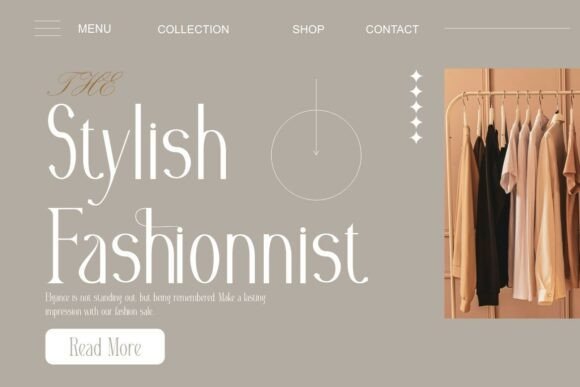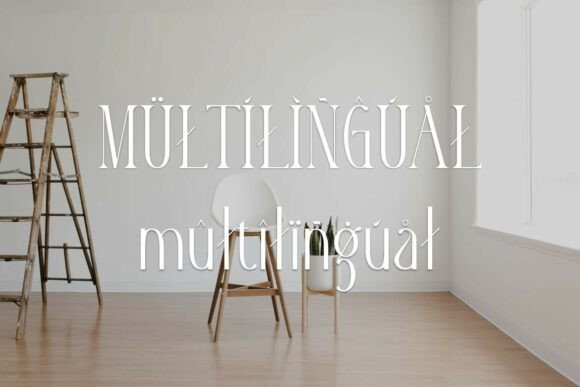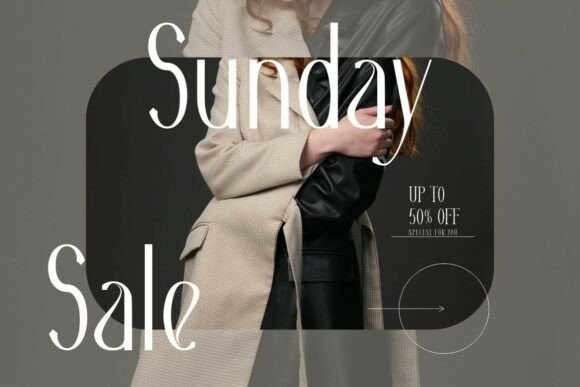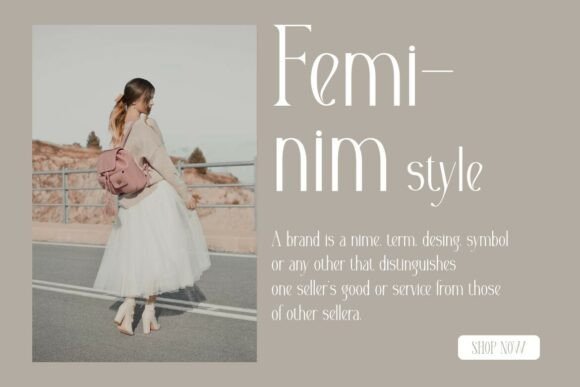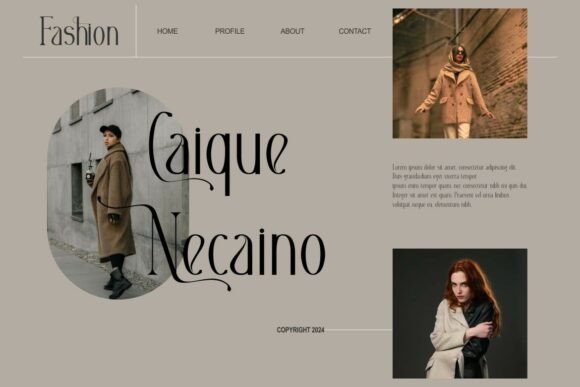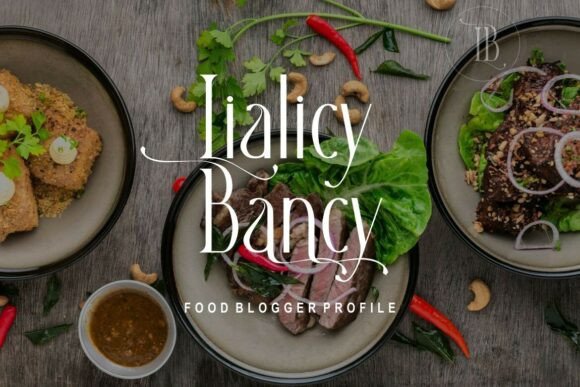
Aulora Font: Elevate Your Design with Elegance and Modernity
Step into a world of refined aesthetics with the Aulora font, a modern serif display typeface designed to command attention while maintaining an air of effortless grace. The Aulora typeface is defined by its striking high-contrast strokes and breathtakingly long, sweeping flourishes that dance across the page. This is not just a collection of letters; it is a design tool crafted for those who want their headlines to sing.
The Perfect Balance of Classic and Contemporary
Whether you are working on a high-fashion editorial, a luxury brand identity, or a sophisticated wedding invitation, the Aulora font provides the perfect balance of classic structure and contemporary flair. Its unique blend of traditional serif elements and modern design sensibilities makes it an ideal choice for designers seeking to create visually stunning and effective typography.
Unleash Your Creativity with Aulora’s Versatility
The versatility of this Aulora typeface lies in its intricate alternates and ligatures, allowing you to customize titles to resemble bespoke, hand-lettered art. Imagine it paired with a clean, minimalist sans-serif for a lifestyle blog, or standing alone on a perfume bottle label where its diamond-shaped decorative elements can truly shine.
Crafting Stunning Headlines with Aulora
Aulora’s striking high-contrast strokes and long, sweeping flourishes make it perfect for creating headlines that demand attention. Its elegant and refined aesthetic ensures that your typography will elevate your design, whether you’re working on a luxury brand campaign or a high-end editorial.
Key Features of Aulora Font
- High-contrast strokes: Aulora’s high-contrast strokes create a dramatic and elegant effect, perfect for headlines and display typography.
- Sweeping flourishes: The long, sweeping flourishes add a touch of sophistication and refinement to your typography.
- Intricate alternates and ligatures: Aulora’s alternates and ligatures allow you to customize your typography to create unique and bespoke designs.
- Diamond-shaped decorative elements: The diamond-shaped decorative elements add a touch of luxury and elegance to your design.
Design Inspiration with Aulora
Aulora is the perfect choice for designers seeking to create visually stunning and effective typography. Its unique blend of classic and modern design elements makes it ideal for a wide range of design applications, from luxury branding to high-end editorials.
Tips for Using Aulora Font
- Pair with a clean sans-serif: Pair Aulora with a clean, minimalist sans-serif for a lifestyle blog or editorial.
- Use for headlines: Aulora is perfect for creating stunning headlines that demand attention.
- Experiment with alternates and ligatures: Take advantage of Aulora’s intricate alternates and ligatures to create unique and bespoke designs.
- Add a touch of luxury: Use Aulora’s diamond-shaped decorative elements to add a touch of luxury and elegance to your design.
In conclusion, the Aulora font is a powerful design tool that offers a unique blend of classic structure and contemporary flair. Its striking high-contrast strokes, sweeping flourishes, and intricate alternates and ligatures make it perfect for creating visually stunning and effective typography. Whether you’re a designer, craftsperson, or simply someone who appreciates beautiful typography, Aulora is sure to elevate your design and inspire your creativity.